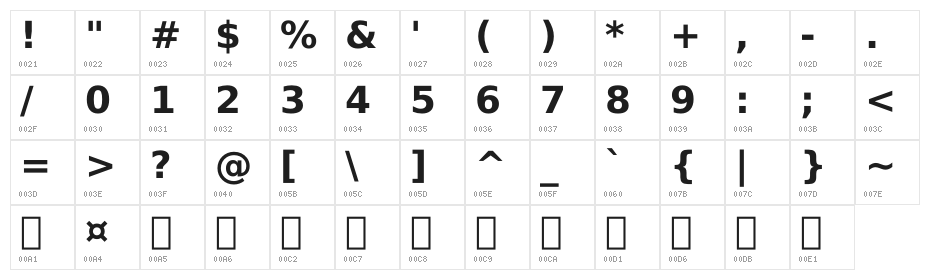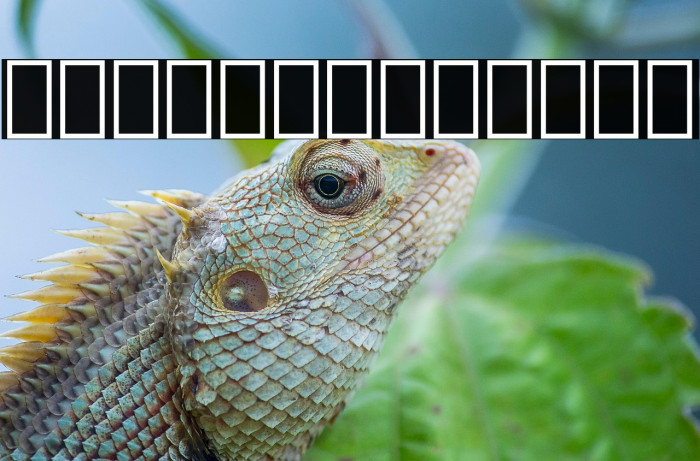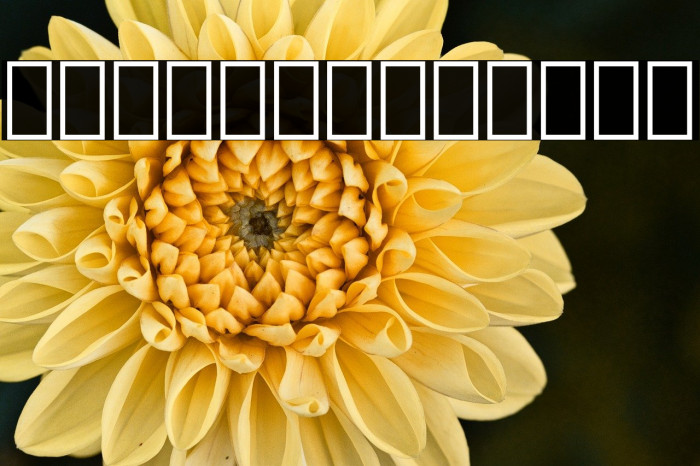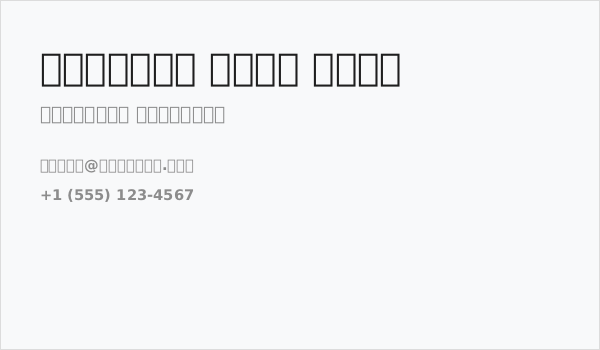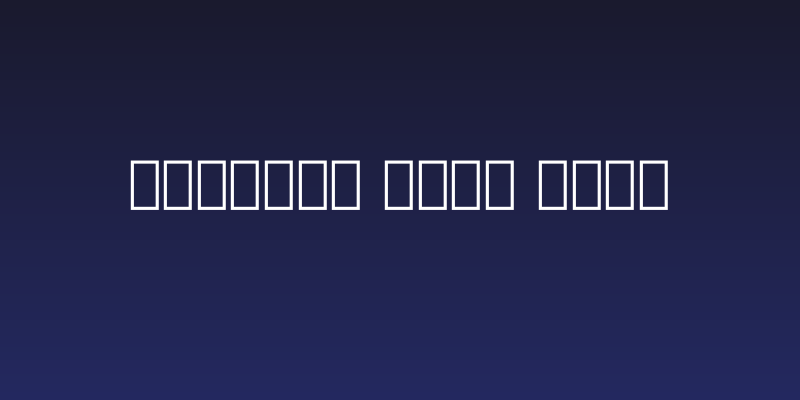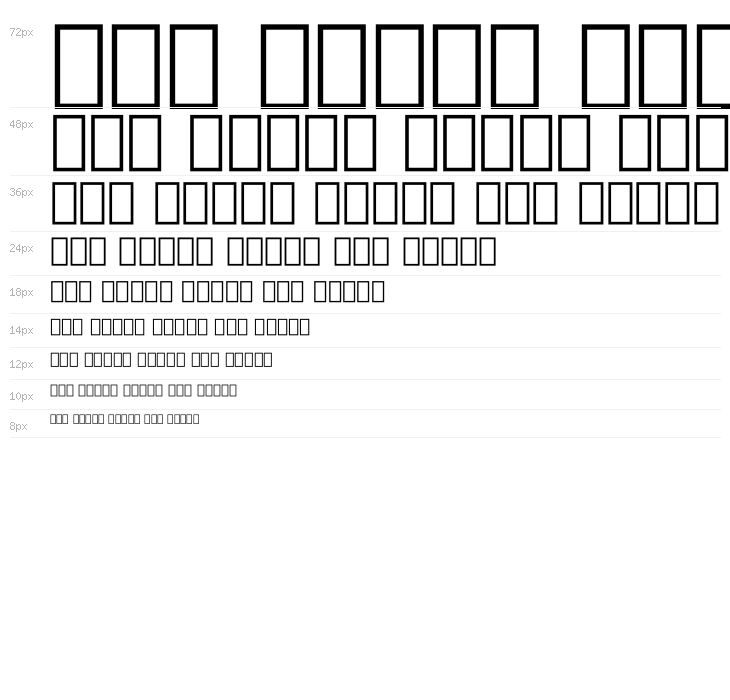
Iranian Sans Bold Font
Iranian Sans Bold Description
This font is a bold, sans-serif typeface characterized by its clean and modern appearance. The letters are uniform in width, providing a balanced and harmonious look. The bold weight enhances readability and makes it suitable for attention-grabbing headlines. The numbers are clear and distinct, ensuring easy legibility. Special characters are well-defined, maintaining the font's overall consistency. This typeface is versatile, fitting for both digital and print media, and can be used in a variety of design projects.
| Use Case | Headlines, Logos, Advertising |
| Proposed Projects | Ideal for branding, advertising, headlines, posters, and digital media. |